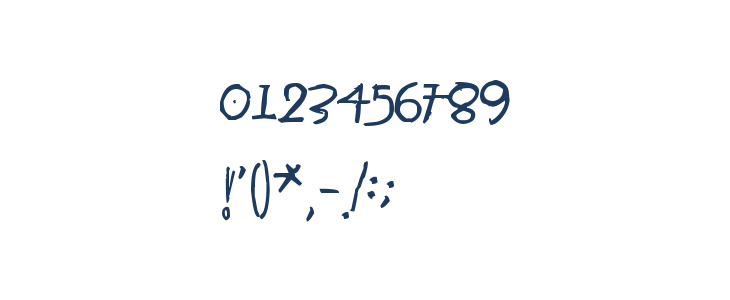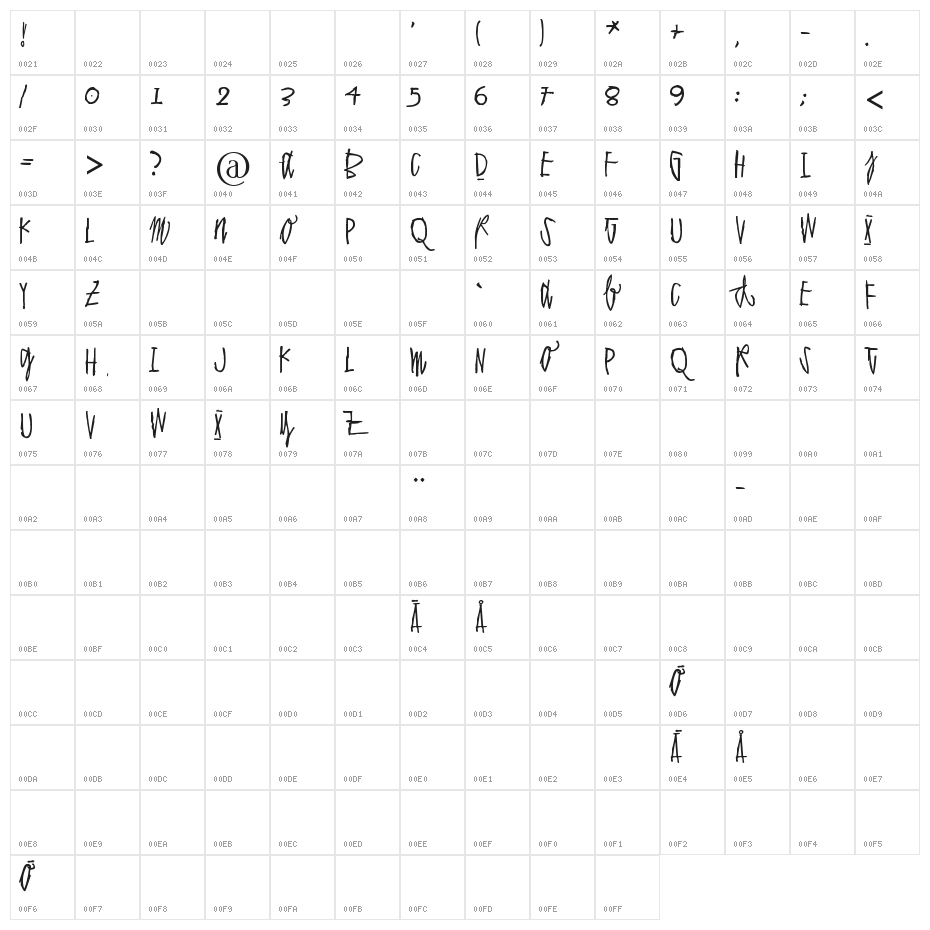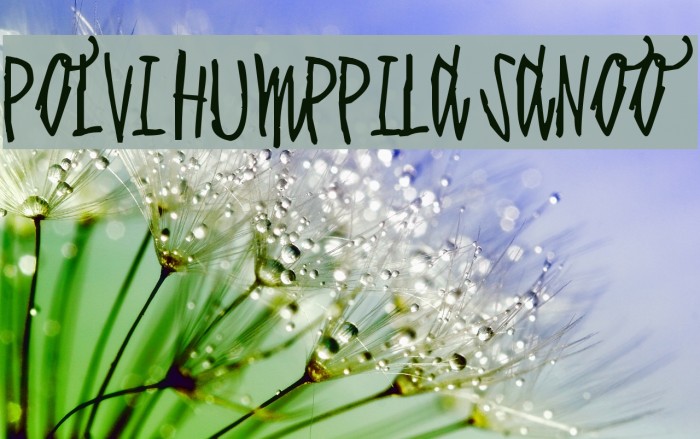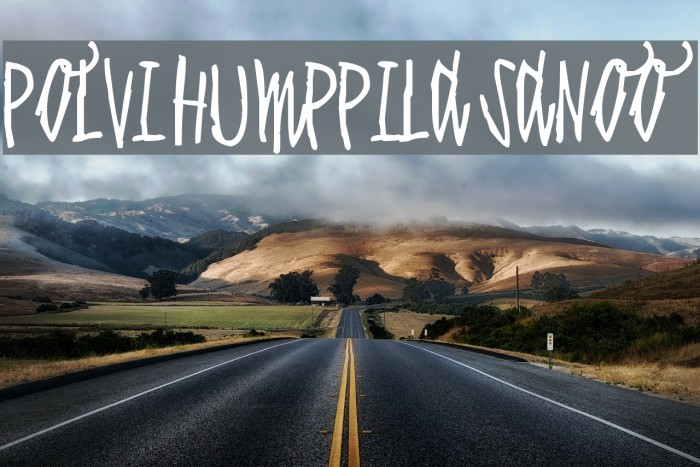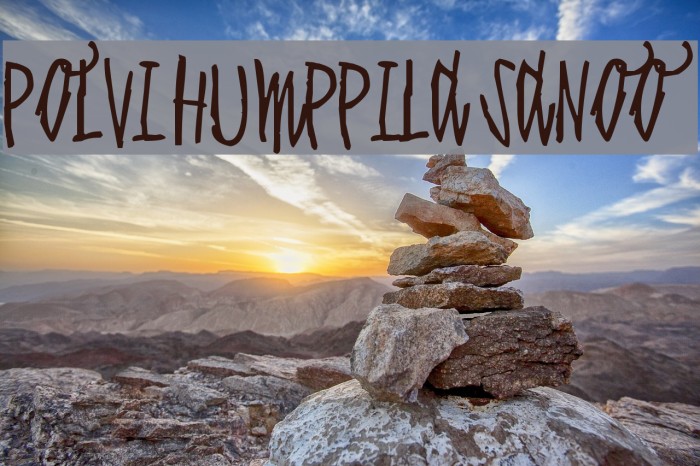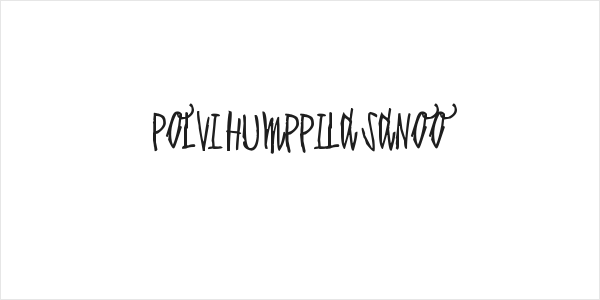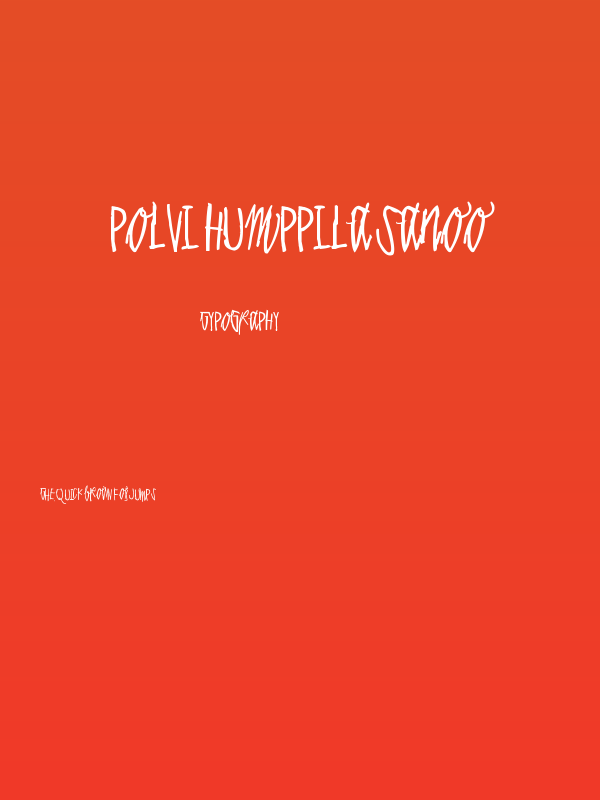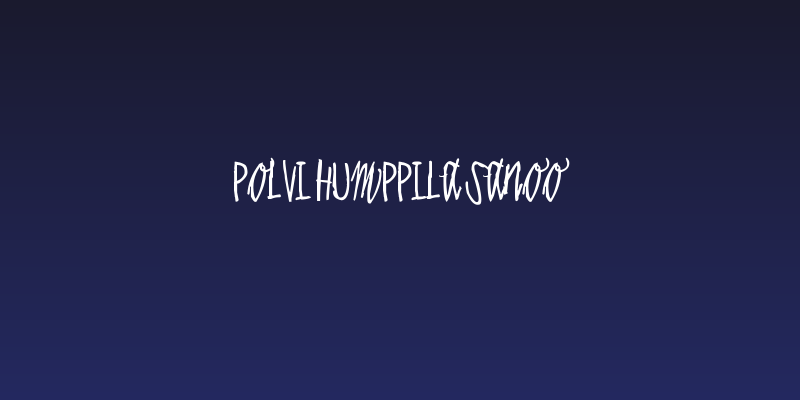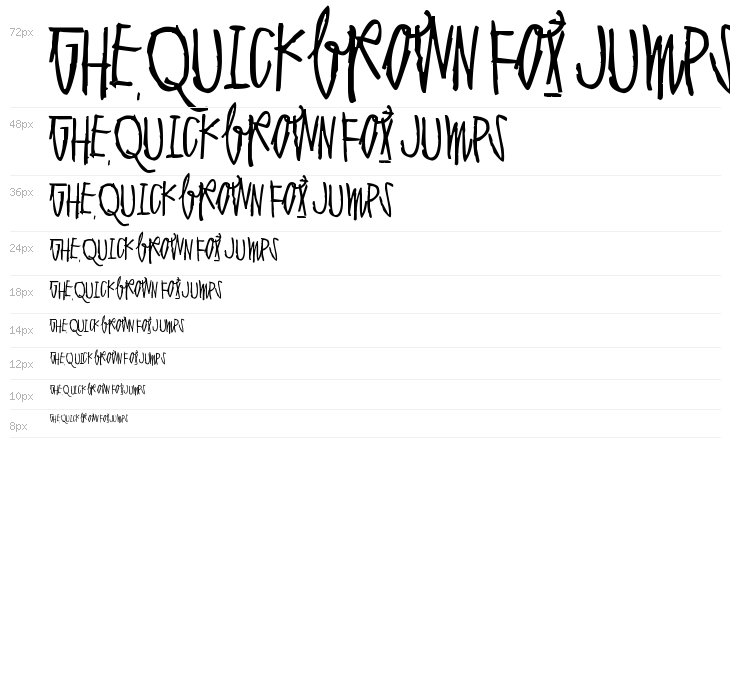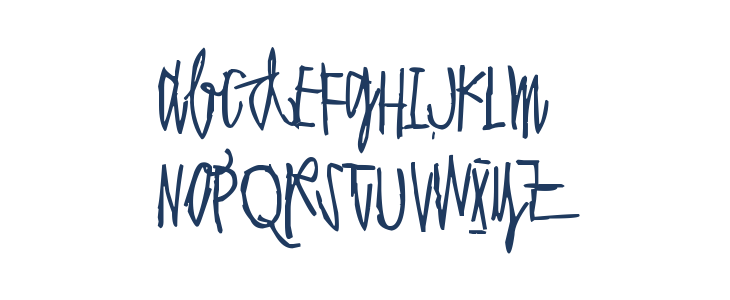
Polvi Humppila sanoo Font
Polvi Humppila sanoo Description
This font exhibits a dynamic and expressive handwritten style, characterized by its bold and energetic strokes. The letters are crafted with a sense of movement, giving them a lively and spontaneous appearance. The uppercase and lowercase letters maintain a consistent style, with elongated and slightly irregular forms that add to the font's unique charm. The numerals and special characters follow the same aesthetic, ensuring a cohesive look across all glyphs. This font's distinctive personality makes it suitable for projects that require a touch of creativity and individuality.
Use CaseLogos, Headlines, Artistic designs
Proposed ProjectsIdeal for creative projects such as posters, invitations, branding, and artistic designs where a personal touch is desired.